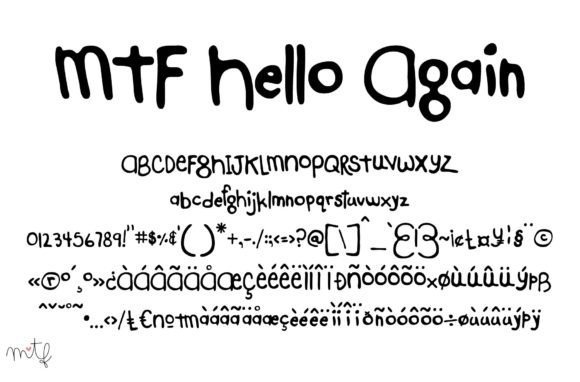
The Perfect Font for Reconnections: Hello Again Font
Have you ever been stuck on a project, staring at a blank page, waiting for that spark of inspiration to hit? We’ve all been there. Sometimes, all it takes is a fresh perspective or a new tool to get those creative juices flowing again. That’s exactly what the Hello Again Font is designed to do – reconnect you with your creativity and help you say hello to new ideas.
This fantastic display font is the perfect companion for designers looking to make a lasting impression. With its perfectly balanced, bold, and natural design, the Hello Again Font is easy to read and versatile enough to be used in any project. Whether you’re working on a marketing campaign, a book cover, or a social media graphic, this typeface is here to help you reconnect with your audience and make your message shine.
Hello Again Font Key Features
- Font Family: Hello Again Font is a unique, hand-drawn sans-serif font family designed for creative and artistic purposes.
- Character Count: The font family includes over 500 glyphs, including Latin, Greek, and Cyrillic characters, as well as various punctuation marks and symbols.
- Unique Characteristics: The Hello Again Font features a distinctive, hand-drawn style with subtle imperfections and variations in letterform, giving it a unique and artistic feel.
Designer Review: Hello Again Font
As a designer, I was excited to dive into the Hello Again Font, but my expectations were mixed. ✨ The font’s playful, elegant style shines through in its beautiful letterforms and creative character sets. I particularly love the intricate details and subtle flourishes that add a touch of sophistication to any design.
The Hello Again Font is also incredibly versatile, making it suitable for a wide range of projects, from branding and advertising to digital products and editorial content. ✨ The font’s strong x-height and sturdy verticals ensure that text remains legible even at small sizes, making it a great choice for web and mobile applications.
- ⚠️ The font’s creative style may not be suitable for all types of projects, particularly those requiring a more formal or traditional aesthetic.
Overall, the Hello Again Font is a solid choice for designers looking for a unique and elegant font to add some personality to their work. While it may have some limitations, its strengths make it a valuable addition to any designer’s toolkit.
- Use “Hello Again Font” for titles and headings to add a touch of elegance to your design.
Lato is a modern sans-serif font designed by Łukasz Dziedzic. It is highly legible and suitable for body text, as well as headlines. Lato is more geometric and has a clean look compared to Hello Again Font, which has a more rounded and friendly feel.
Use Lato when you need a clean, modern look for your design, and you want to emphasize the content rather than the font itself.
Montserrat is a sans-serif font designed by Julieta Ulanovsky. It is inspired by the urban landscape of Montserrat, a mountain range in Argentina. Montserrat is more geometric and condensed compared to Hello Again Font, making it suitable for titles and headings.
Use Montserrat when you want to add a touch of modernity and urban feel to your design, and you need a font that can handle short texts and titles effectively.